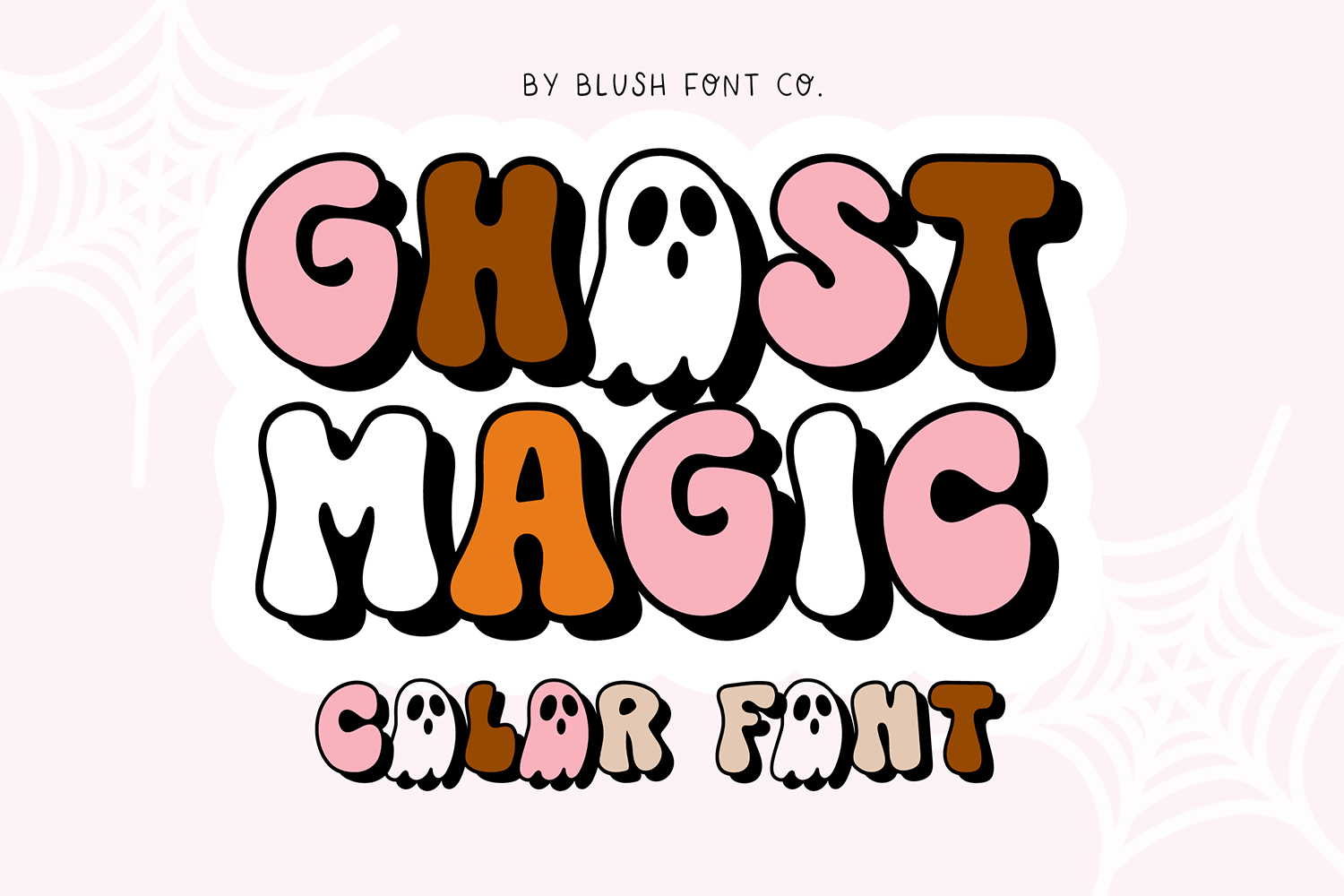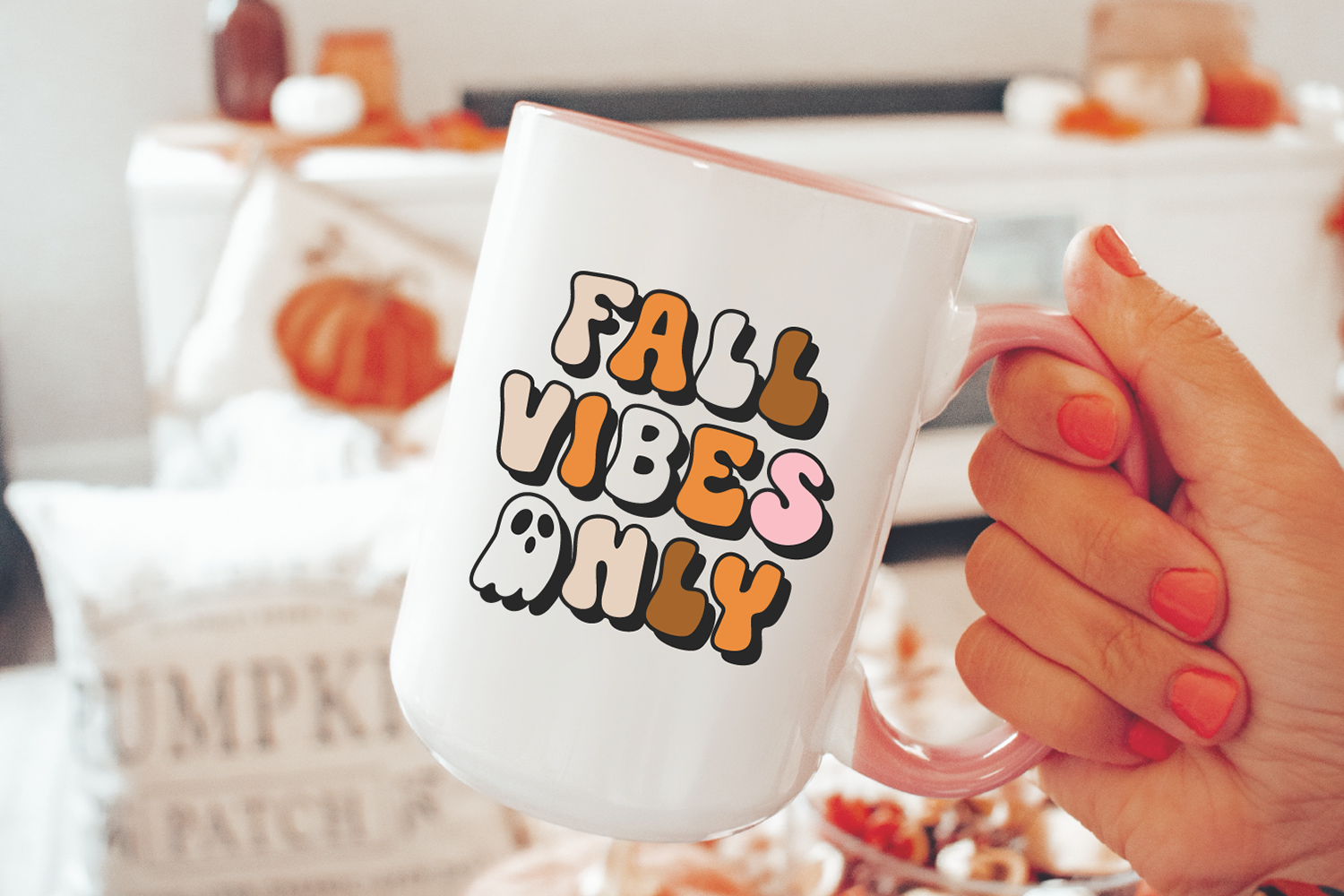
GHOST MAGIC - Retro Ghost Halloween COLOR OTF FONT
Uppercase characters are black and white hollowed-out letters. The background color will be whatever color you lay it on.
Lowercase letters, punctuation, and numbers are color characters. You can alternate the uppercase characters with the lowercase to give more dimension between any duplicate colors.
This is an OpenType-SVG Color vector font.